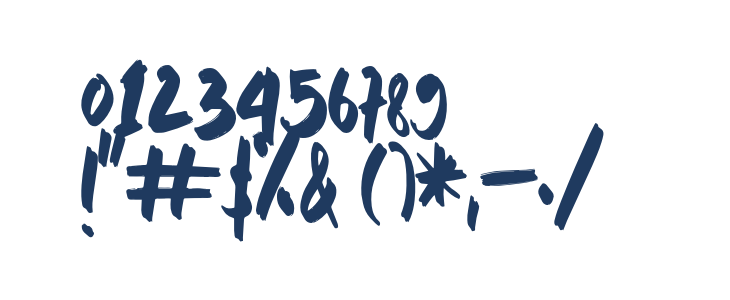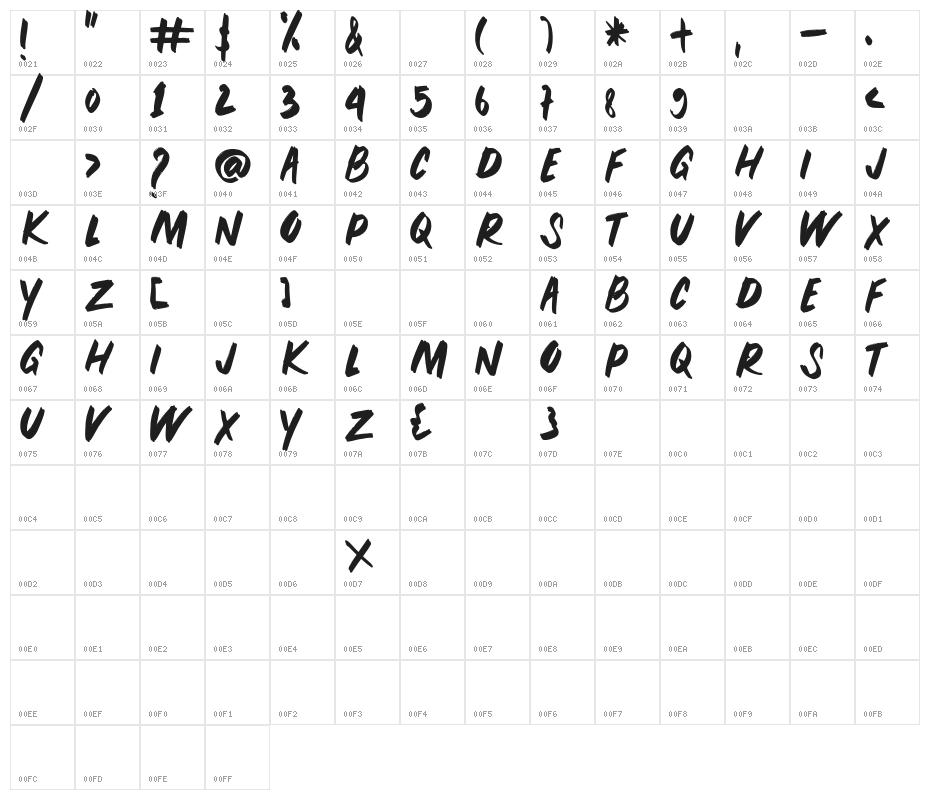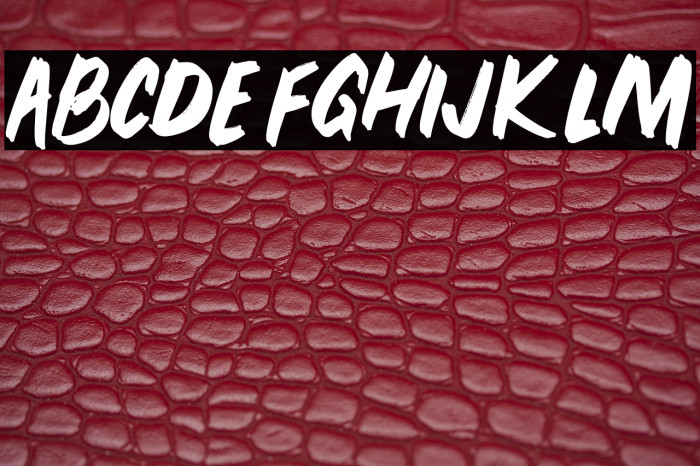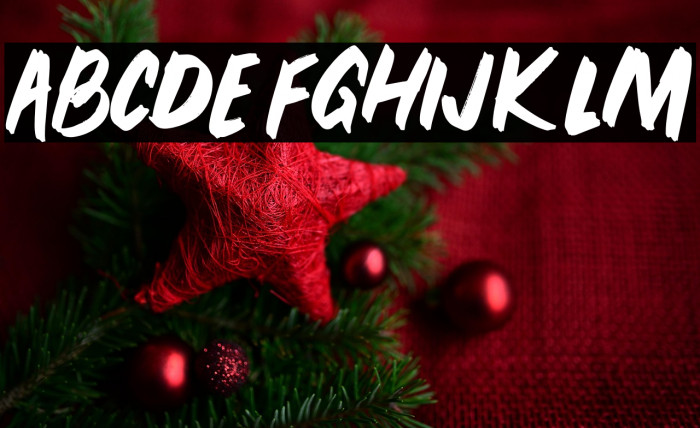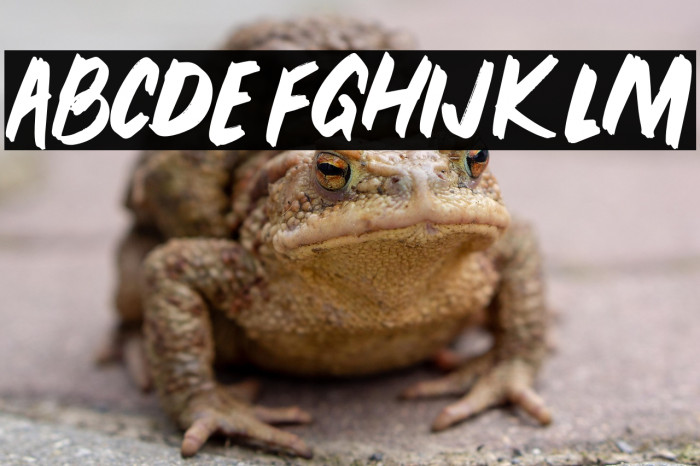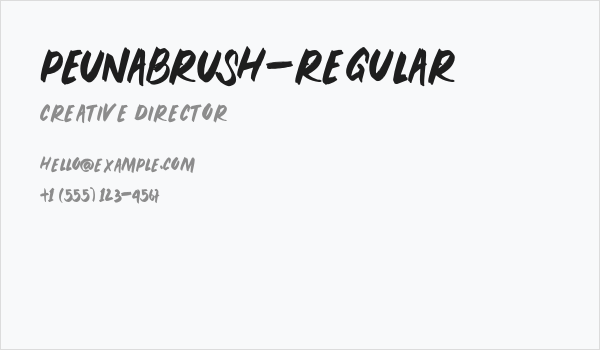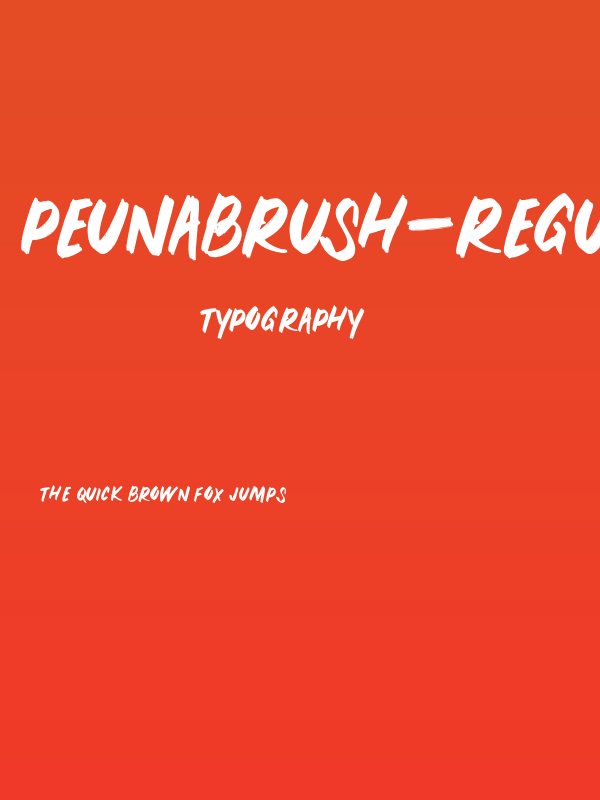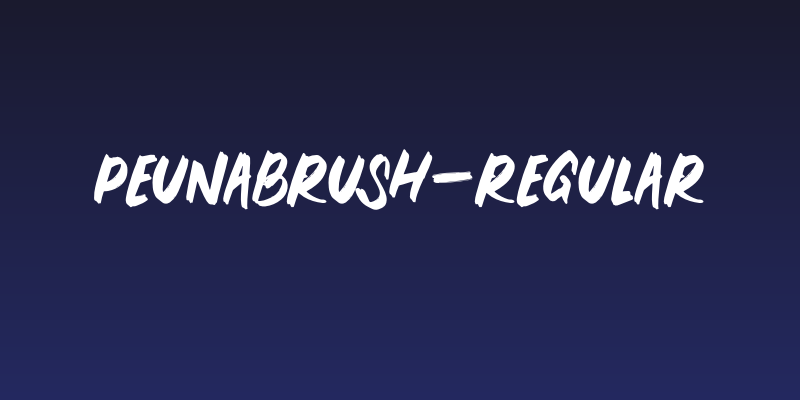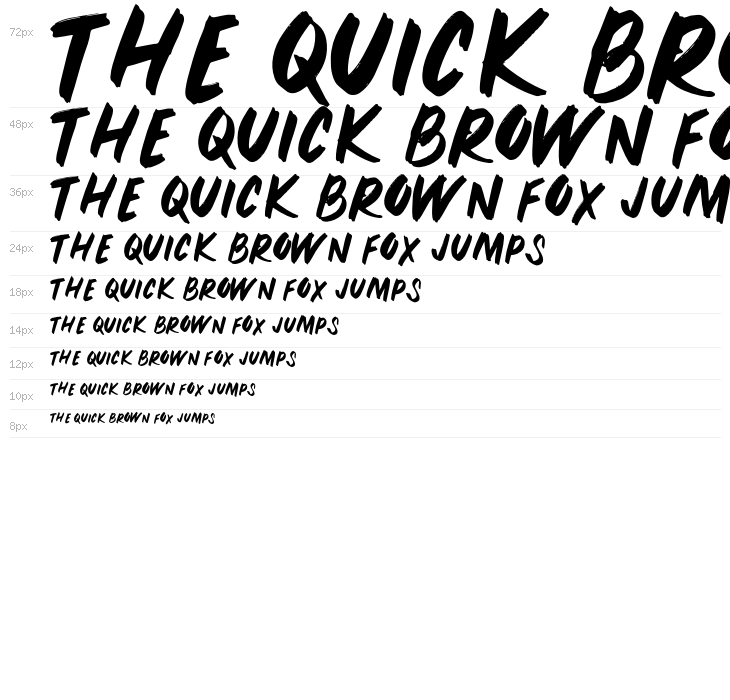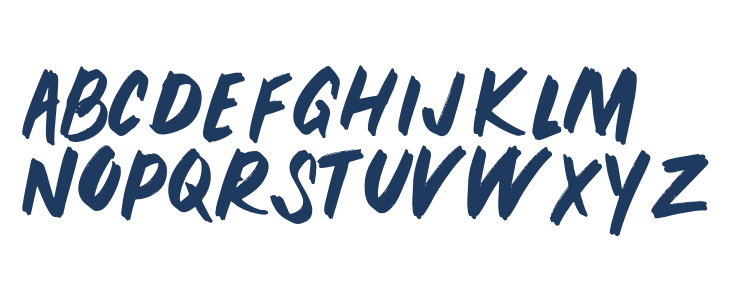
PEUNABRUSH-Regular Font
PEUNABRUSH-Regular Description
This font showcases a bold, expressive brush style that exudes energy and dynamism. The strokes are thick and uneven, mimicking the natural flow of hand-painted letters. Each character has a distinct personality, with varying angles and curves that add a sense of movement and spontaneity. The uppercase and lowercase letters maintain a consistent style, while the numbers and special characters integrate seamlessly into the overall design. This font is ideal for projects that require a strong visual impact and a touch of artistic flair.
| Overall Style | Modern, Artistic |
| Proposed Projects | Ideal for posters, branding, packaging, and any design that needs a bold, artistic touch. |